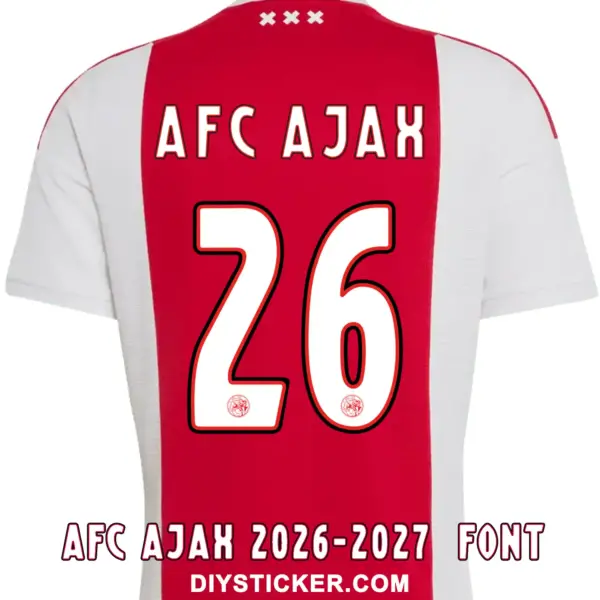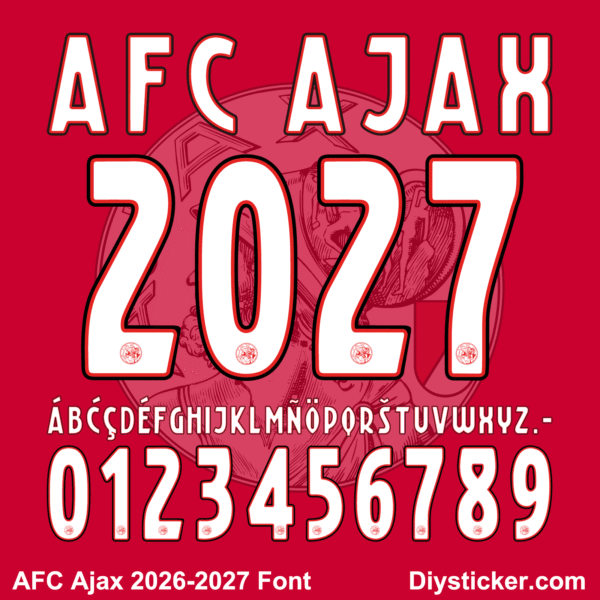
AFC Ajax 2026-2027 Font & Numbers Vector Kit: Premium Amsterdam Football Typography
Upgrade your custom print production with the high-performance AFC Ajax 2026-2027 home kit font and complete numbers set. Designed to perfectly replicate the distinctive club look worn on the pitch at the Johan Cruijff ArenA, this digital toolkit offers unrivaled geometric precision. Whether you are creating an authentic custom name-set for a passionate fan or compiling bold promotional sports signage, our vector files ensure factory-fresh alignment. Discover more iconic European club layouts by exploring our curated repository.
Aesthetic Design Breakdown & Typography Engineering
The AFC Ajax 2026-2027 home kit font showcases a distinctive, rounded athletic geometry that beautifully balances classic club identity with crisp modern performance detailing:
• Distinctive Soft Rounded Architecture: Moving away from aggressive sharp angles, the alphabet and numbers feature smooth, flowing rounded curves mixed with straight inner stems. This creates an elegant, highly legible typography profile on the fabric.
• Bold Dual-Layer Outline Contour: The numbers feature a solid white fill encased by a crisp, uniform black inner line and a prominent red outer border. This dual-layer framing provides high visibility and visual depth against the jersey fabric.
• Integrated Club Crest Identity: Positioned perfectly within the lower baseline curve of each large digit is the circular, official-style AFC Ajax crest logo, ensuring absolute replica authenticity for high-end customization.
• Optimized Home Kit Contrast: Specifically designed to harmonize with the legendary vertical red block and crisp white shoulders, the solid white body of the numbers pops with maximum clarity.